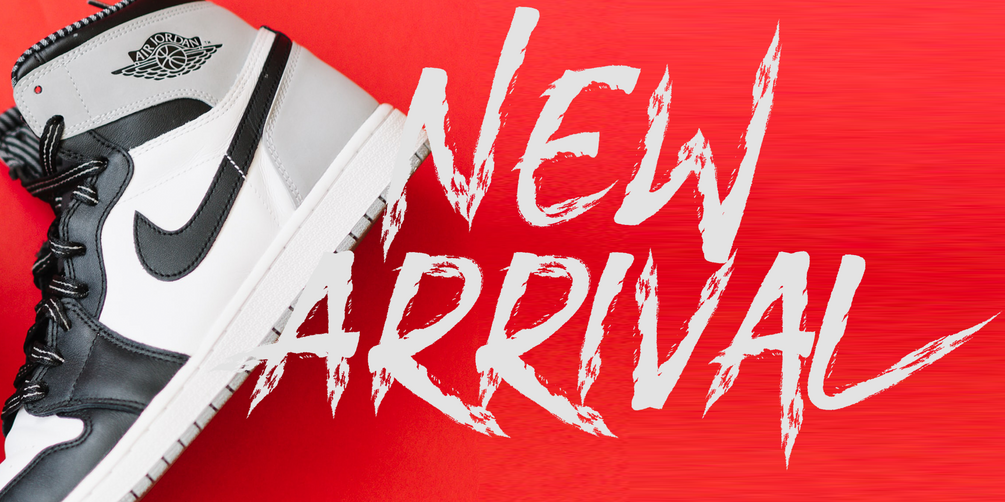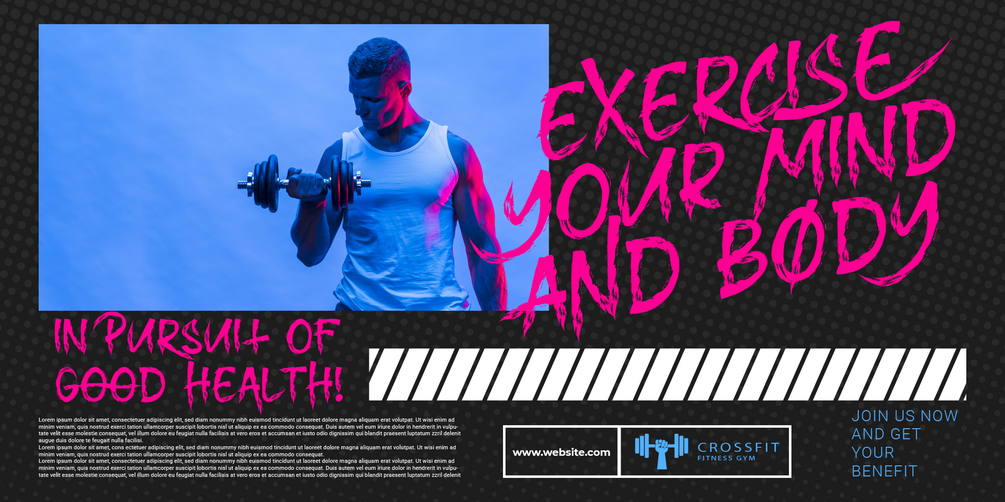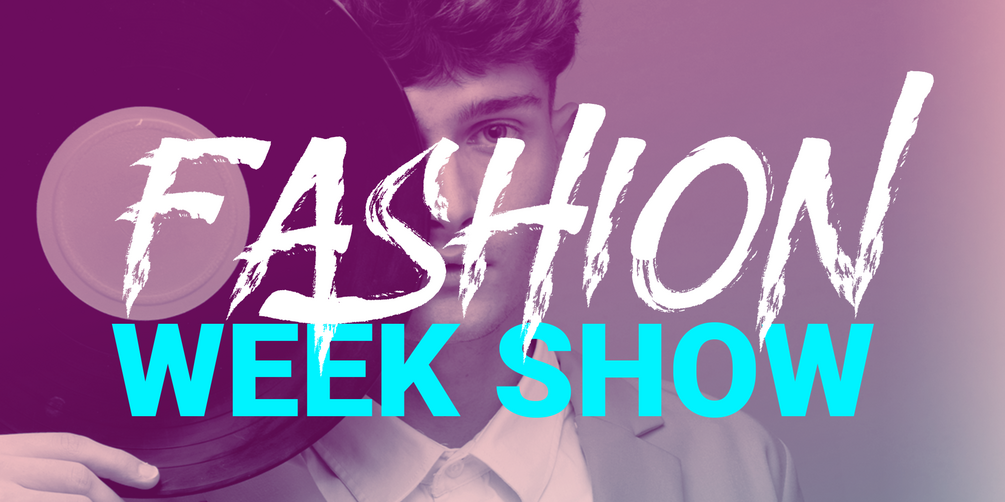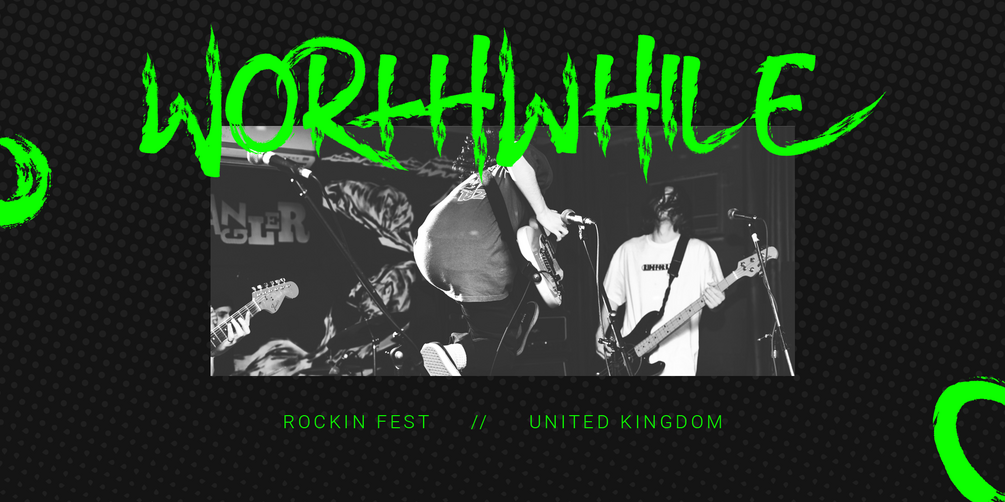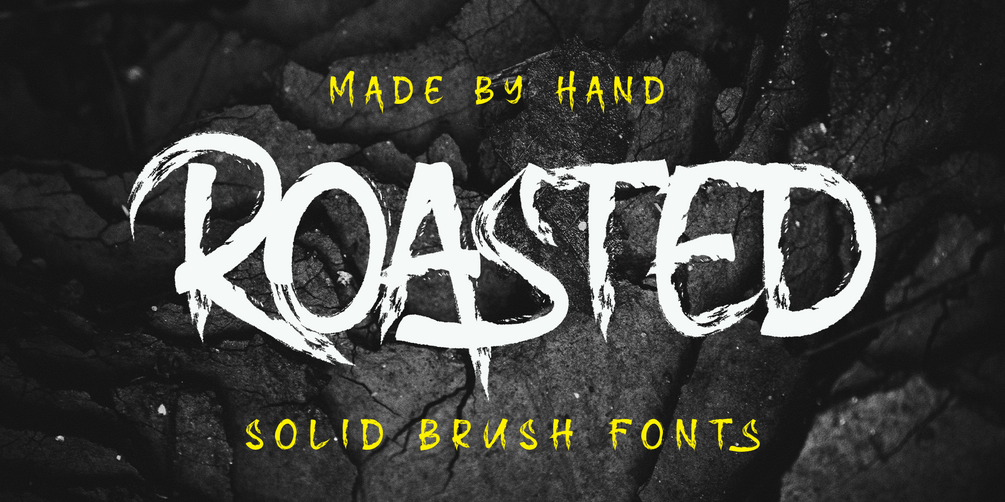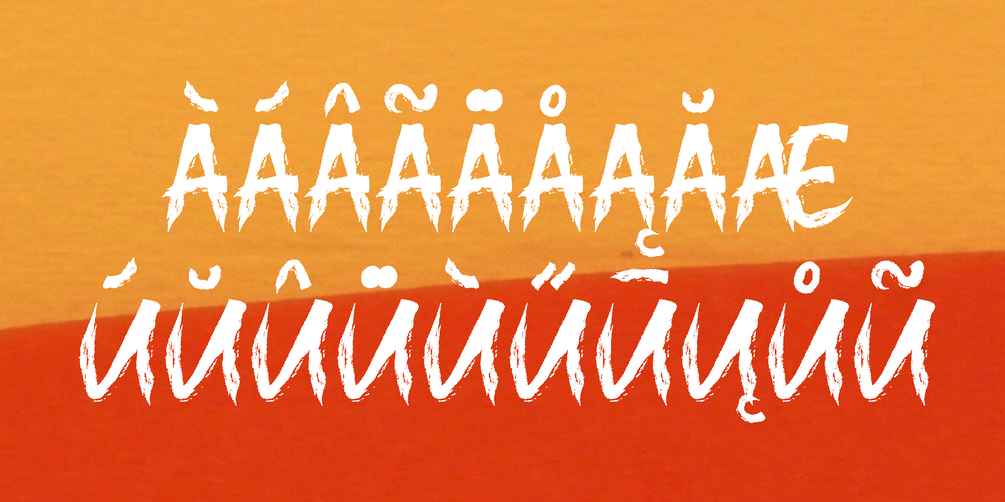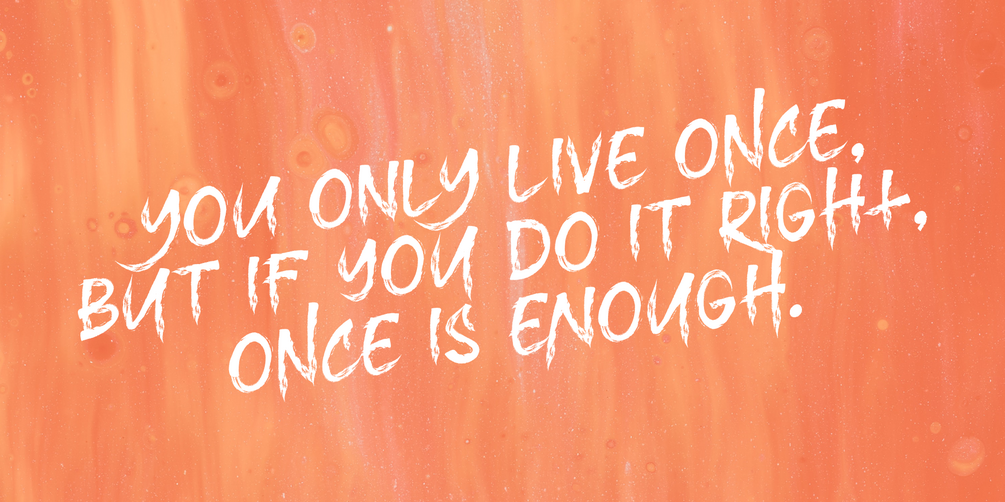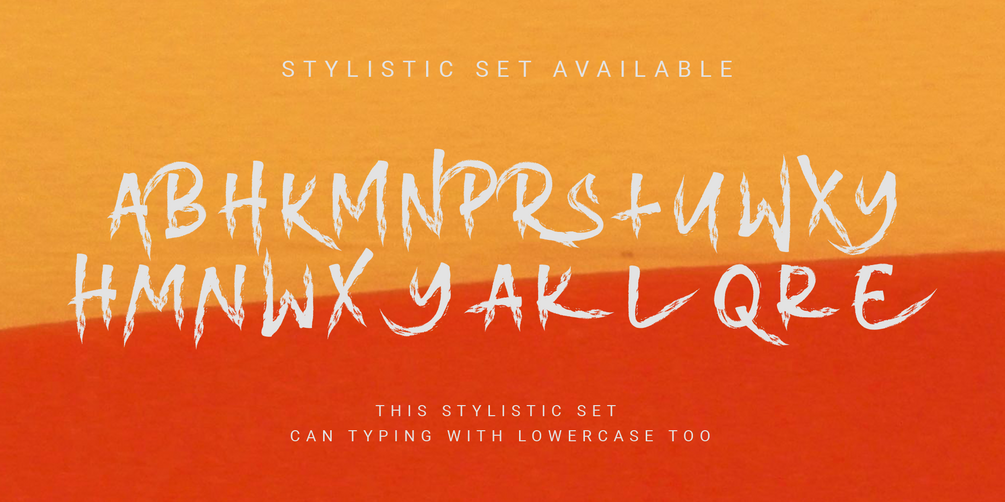
Roasted - Solid Brush Fonts
Hello, Introducing the new hand brush fonts Roasted.
Roasted is truly hand made by 100%.
This fonts have a Stylistic Set.
You can access the Stylistic Set with lowercase too.
Still have a good readibility and strong font.
• Uppercase
• Lowercase
• Numerals
• Symbols
• European Multilingual
• Stylistic Set 1
• Stylistic Set 2